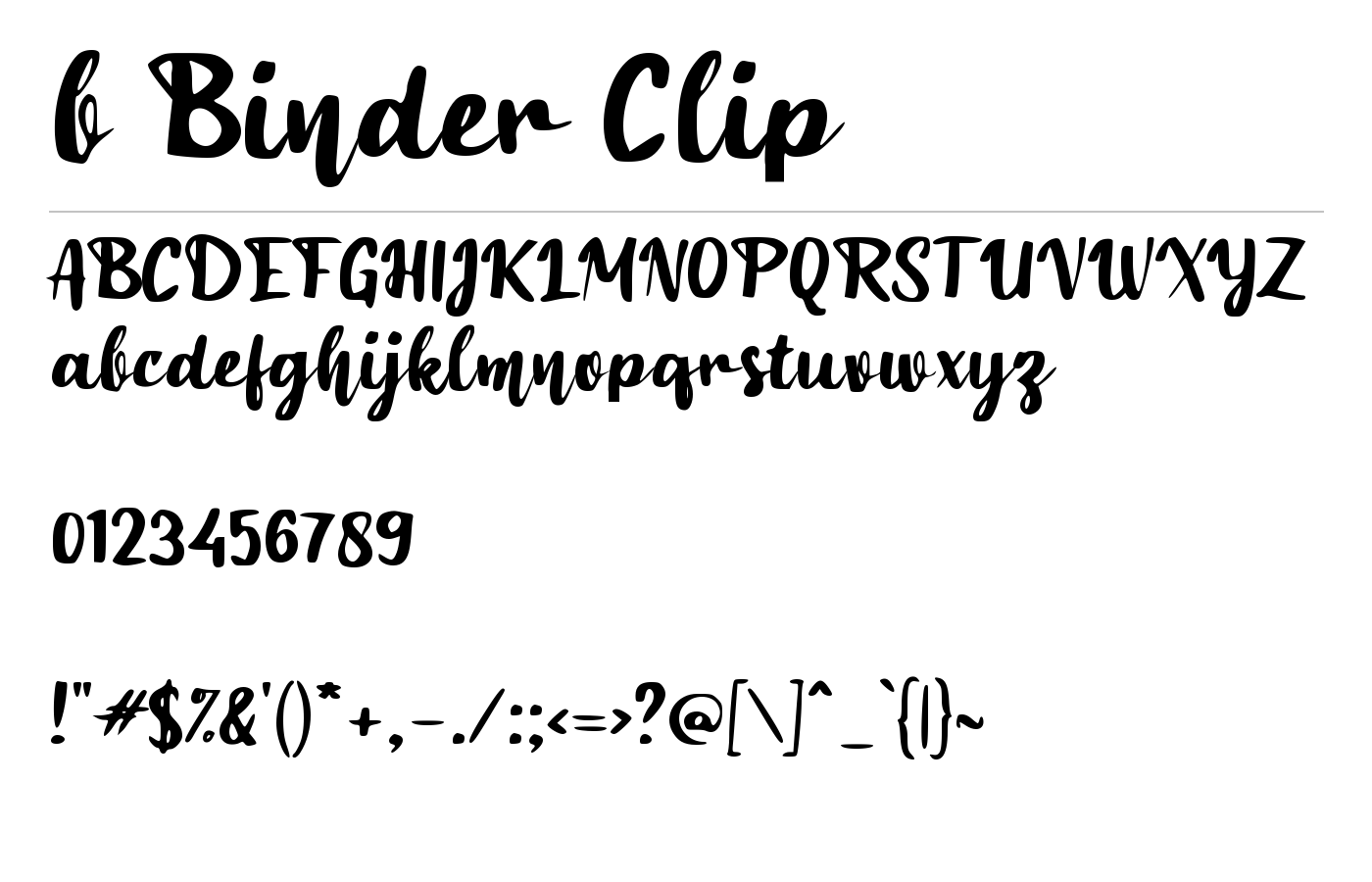
Binder Clip is a bold, playful script font with a strong personality and lively, brush-like strokes. Its tall x-height, rounded forms, and slightly irregular shapes give it a casual, friendly vibe, making it ideal for creative branding, headlines, and packaging that seek a handcrafted, energetic feel. This font works best when you want to add warmth and approachability with a stylish, handwritten touch.
b Binder Clip Font